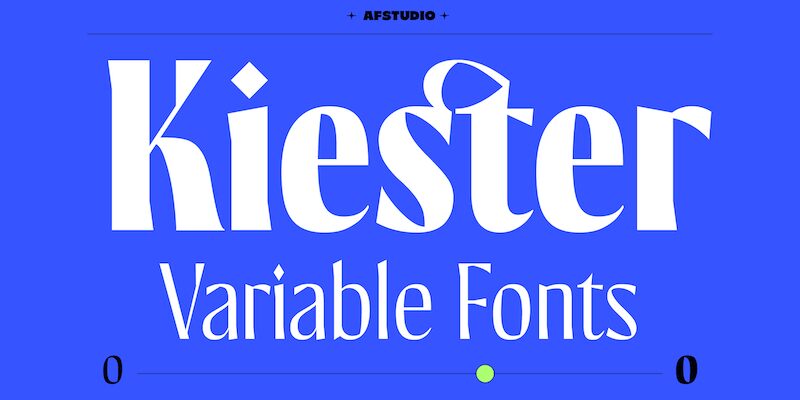
Kiester, a captivating serif font designed by AF Studio, adds an air of elegance and sophistication to any project. Its condensed width allows for more content in limited spaces without sacrificing legibility or style. Perfect for designing eye-catching logos that demand attention, Kiester also shines in fashion magazines by effortlessly complementing high-end photography. With its distinct serifs and refined lines, this font is ideal for creating stunning invitations that leave a lasting impression. Whether it's editorial layouts or branding materials, Kiester brings a touch of class to any project.
Kiester